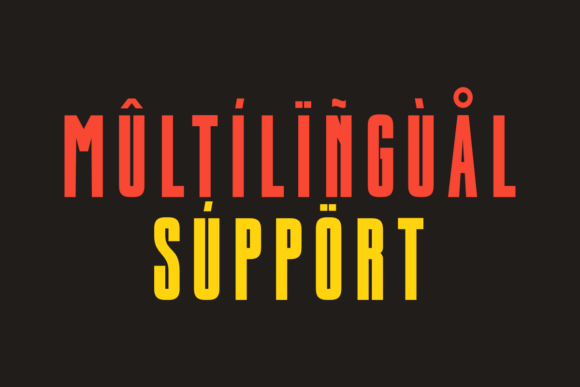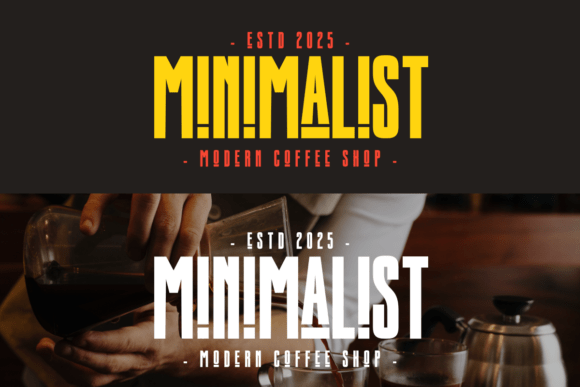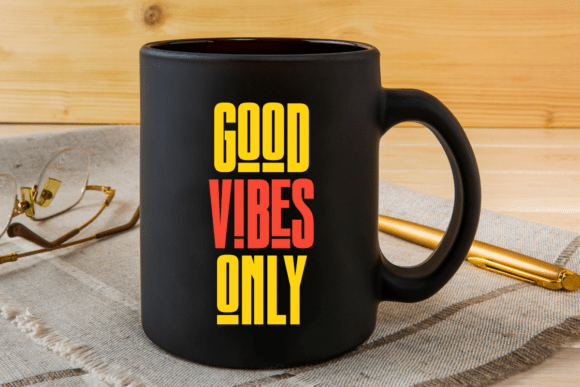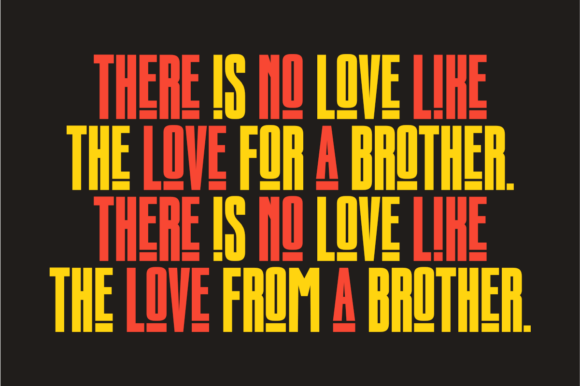
Brother Font
Brother is a bold condensed sans serif font that combines powerful energy with modern style. With its strong vertical strokes and sharp geometric edges, this typeface is designed to grab attention and make a statement.
Whether you’re working on urban apparel designs, music branding, esports logos, or gritty posters, Brother delivers a masculine, professional impact. Perfect for designers seeking a clean yet aggressive display font, this typeface is ideal for merchandise, streetwear, packaging, and social media promos.
With its bold presence and sleek proportions, Brother is made for creators who aren’t afraid to go big, loud, and fearless.